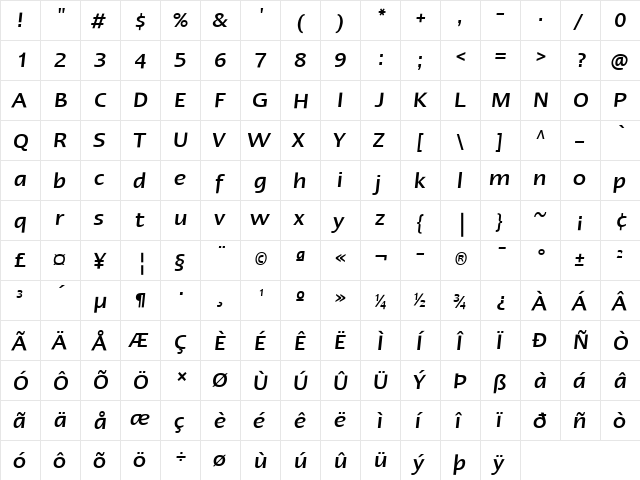
LTErgo MediumItalic Regular Font Preview
LTErgo MediumItalic Regular
LTErgo MediumItalic Regular Font Details
Design Context for LTErgo MediumItalic Typeface
LTErgo MediumItalic takes a measured approach to typography — its balanced proportions and neutral character make it a reliable workhorse for both digital and print work. Its italic angle brings a sense of urgency and motion to the letterforms.
Pro Tip: Try LTErgo MediumItalic for annotation and caption copy alongside an upright companion — the contrast in angle creates a dynamic but ordered typographic system.